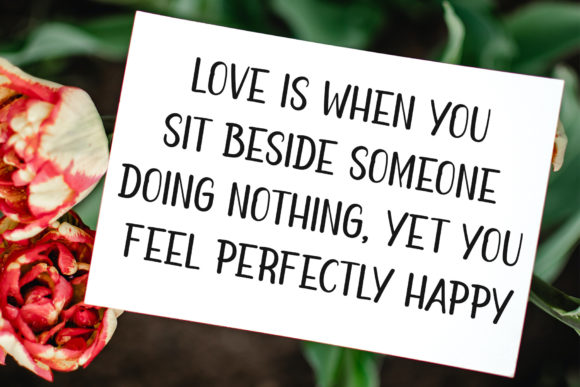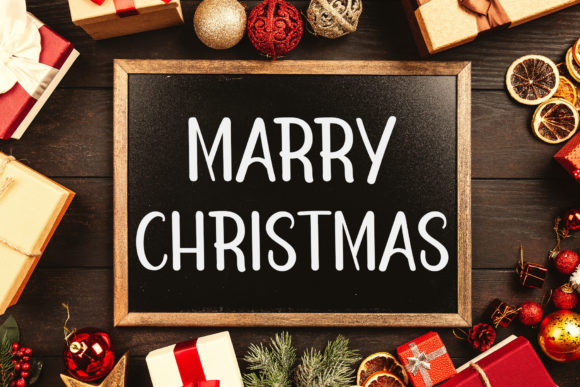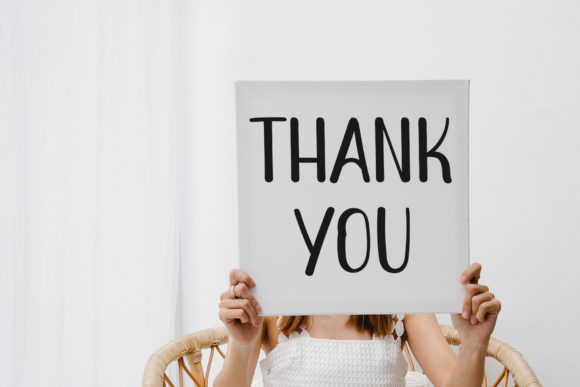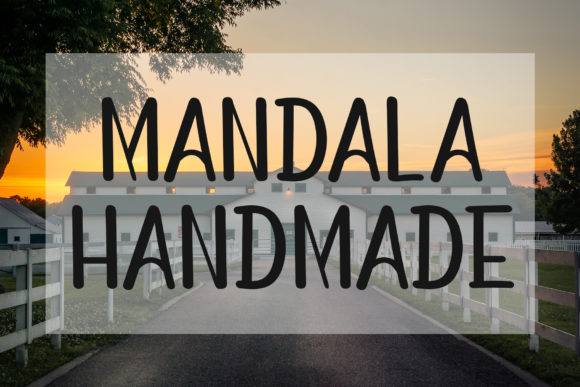
Introduction to Farmhouse Starmoon Font
Farmhouse Starmoon is a beautiful and simple script font.
It has a modern look that can be used for logos, branding, invitations, stationery, wedding designs, social media posts, and much more .
Key Features of Farmhouse Starmoon Font